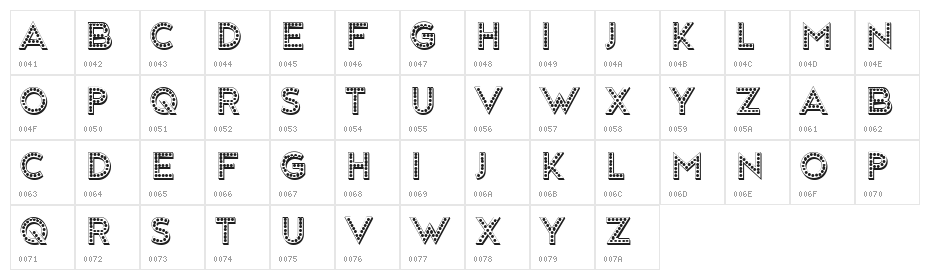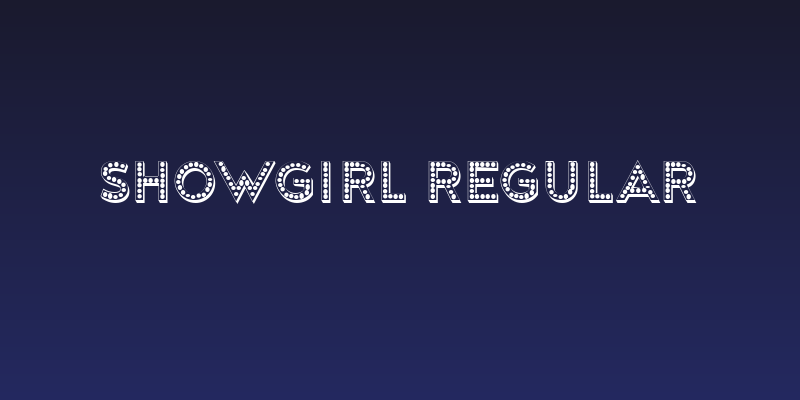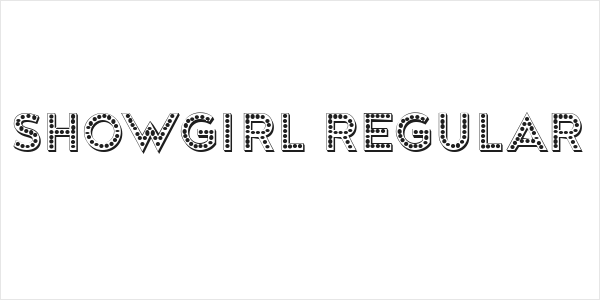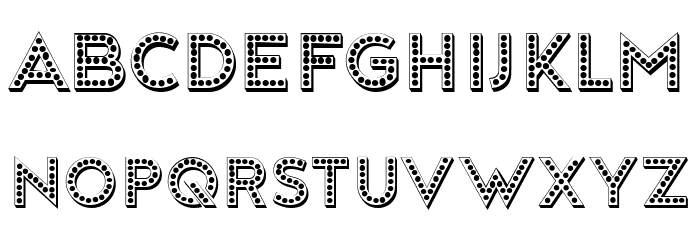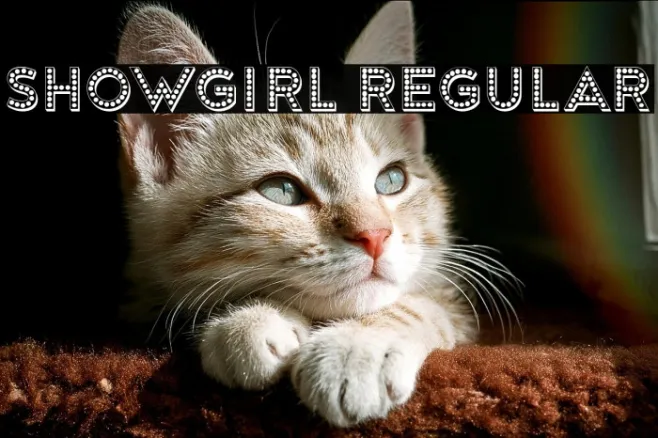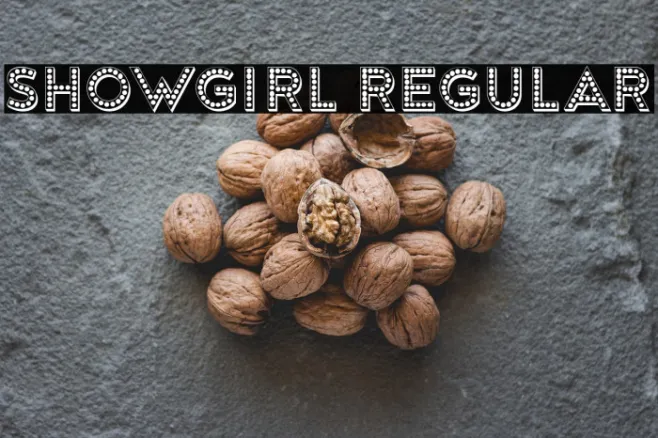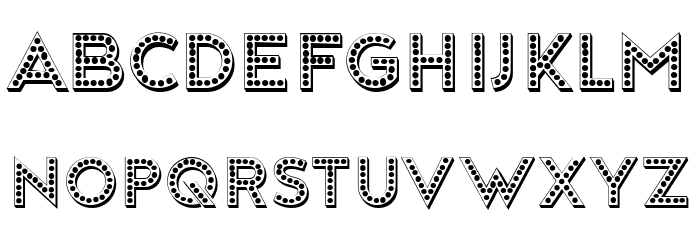
Showgirl Regular Font
Showgirl Regular Description
This font features a bold and decorative style, characterized by its unique use of dots within the letterforms. The uppercase letters are designed with a strong geometric structure, while the dotted pattern adds a playful and eye-catching element. The font maintains a consistent weight throughout, ensuring readability despite its decorative nature. The spacing between characters is normal, allowing for clear distinction between each letter. This font is ideal for projects that require a touch of glamour and flair, reminiscent of vintage marquee signs and showbiz aesthetics.
| Proposed Projects | Perfect for use in posters, event invitations, signage, and branding projects that aim to capture attention and convey a sense of excitement and elegance. |